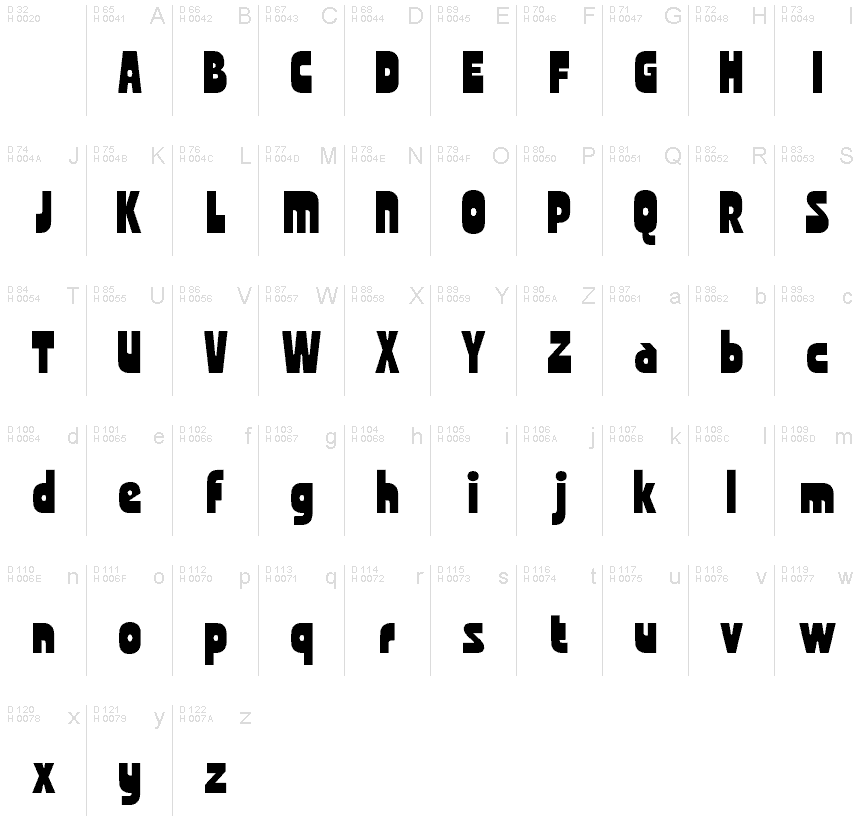
CS Boswell Regular Demo
CS Boswell font by Craft Supply Co. is a retro-inspired bold condensed sans serif font with geometric structures and impactful appearances. The letters have a solid presence, and they carry industrial vibes when used in both lowercase and uppercase combinations.